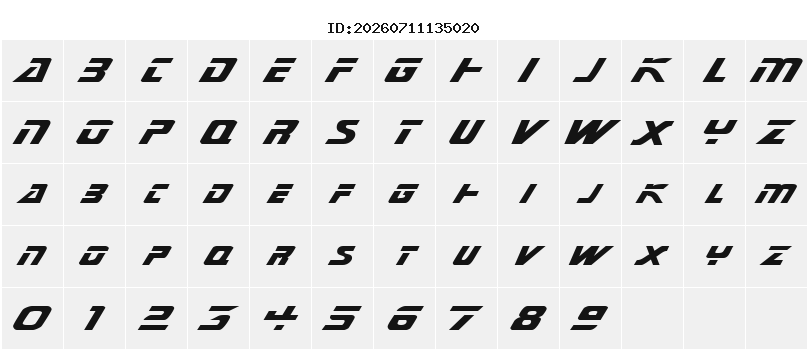
MarinerExtended Preview
• Font Name: MarinerExtended
• Full Font Name: MarinerExtended
About MarinerExtended.ttf
MarinerExtended.ttf is a modern, elegant sans-serif font designed for ultimate readability and visual harmony. Perfect for branding, headlines, web design, and print materials.